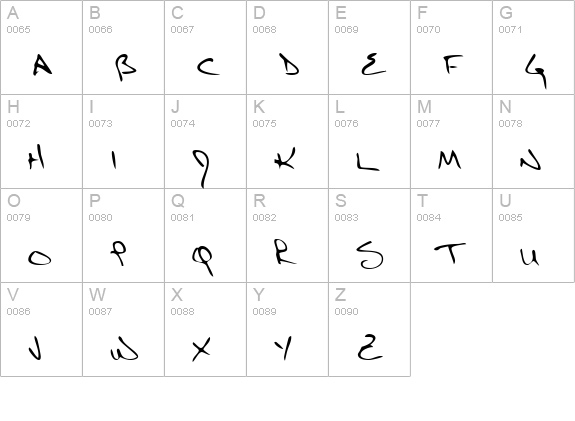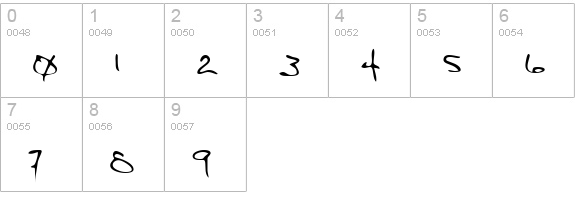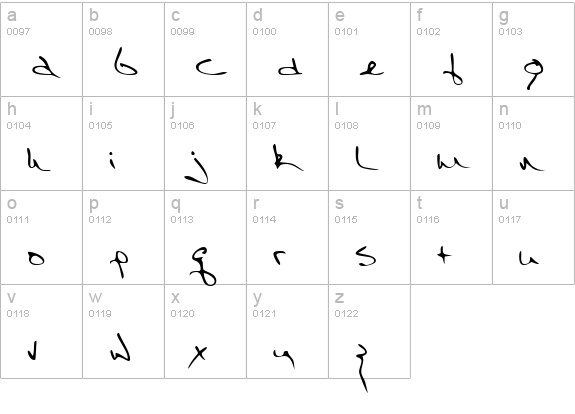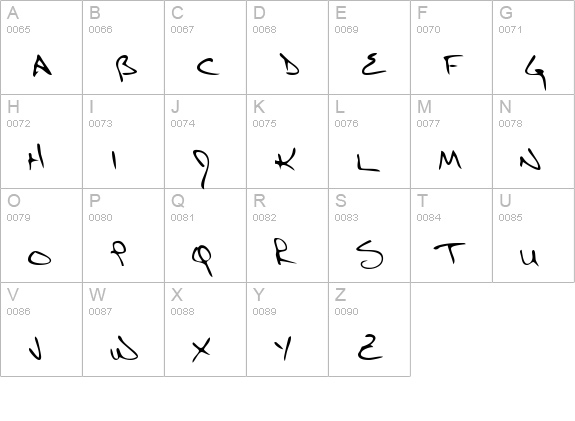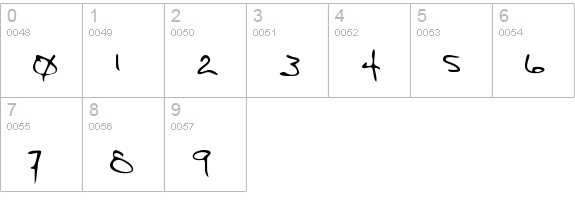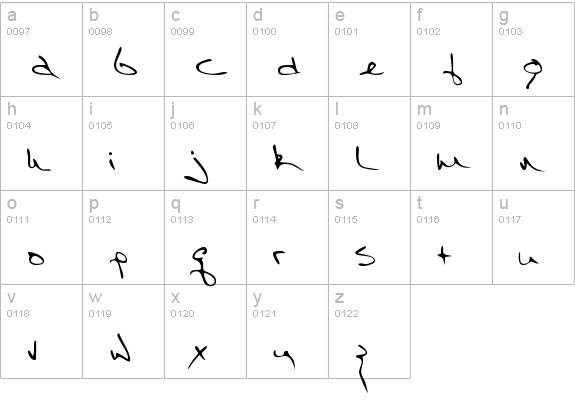
EricsHand Regular Font Details
EricsHand Regular is the standard, neutral variant in the EricsHand typeface family \xE2\x80\x94 well suited to general body text, paragraphs, and standard typographic work.
EricsHand Regular font is a charming and versatile typeface that exudes a sense of friendliness and approachability. With its smooth curves and playful design, this font is perfect for adding a touch of personality to your projects. Whether you're creating a greeting card, designing a logo, or working on a poster, EricsHand Regular will bring a unique and engaging look to your text. The best part is that EricsHand Regular font is available for free download at FontsMarket.com. You can easily access this delightful font and start using it in your design projects without any cost. Don't miss out on this opportunity to enhance your creations with the whimsical charm of EricsHand Regular font. Download it today and let your creativity shine!